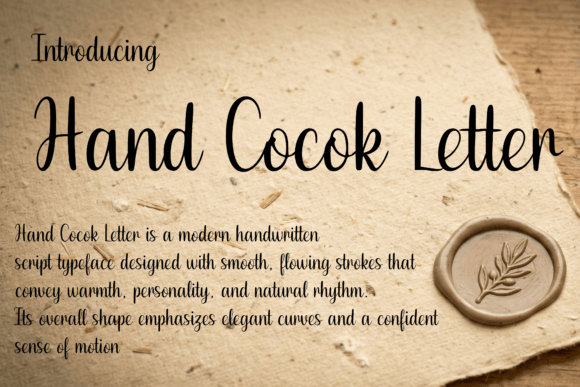
Bringing Personality to Your Design
Imagine you’re holding a pen and scribbling down your favorite quote in a worn leather journal. The ink flows effortlessly, and the curves of your handwriting seem to dance across the page. This is the kind of emotional connection that the Hand Cocok Letter Font aims to replicate in digital design.
Designed to evoke the warmth and personality of handwritten script, Hand Cocok Letter Font is a versatile typeface that can add a touch of authenticity to a wide range of creative projects. Whether you’re crafting a brand identity, designing a product label, or creating social media visuals, this font is sure to bring a unique and engaging feel to your work. Its balanced rhythm and elegant stroke contrast make it a valuable tool for designers looking to add emotional resonance to their designs.
Hand Cocok Letter Font Key Features
- Unique Characteristics: Handwritten font with a unique, cursive style, perfect for adding a personal touch to designs and documents.
Hand Cocok Letter Font Review
Overall, I think Hand Cocok Letter Font is a beautiful and elegant script font. It’s perfect for projects that need a touch of personality and whimsy. ✨ Here are some of the things I like about it:
- Feminine and delicate feel
- Unique and distinctive letterforms
- Perfect for titles, headings, and quotes
However, as with any font, there are some limitations to consider. ⚠️ Here are a few things to keep in mind:
- May be difficult to read at small sizes
- Can be tricky to pair with other fonts
- Not suitable for body text
Overall, I think Hand Cocok Letter Font is a great choice for designers who want to add a touch of personality to their projects. It’s perfect for titles, headings, and quotes, but may not be the best choice for body text. With a little care and consideration, it can be a beautiful and effective addition to any design.
The Hand Cocok Letter Font is ideal for:
1. Creating invitations and event graphics.
2. Designing children’s books and educational materials.
3. Adding a personal touch to digital greeting cards and social media posts.